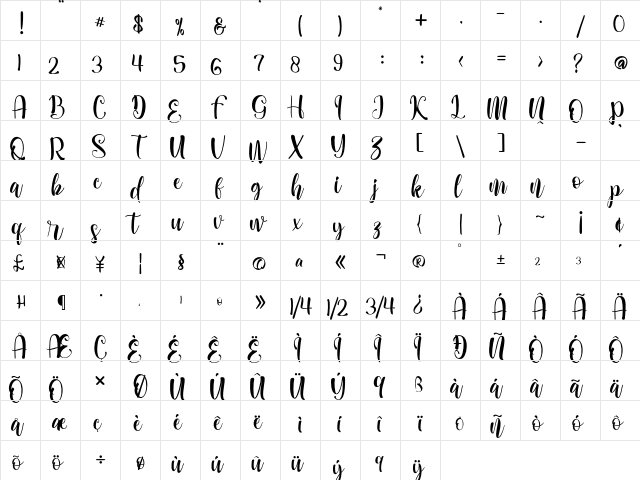
enchantee Regular
Design Context for enchantee Typeface
enchantee is a composed and adaptable typeface that performs quietly and consistently across a wide range of design contexts.